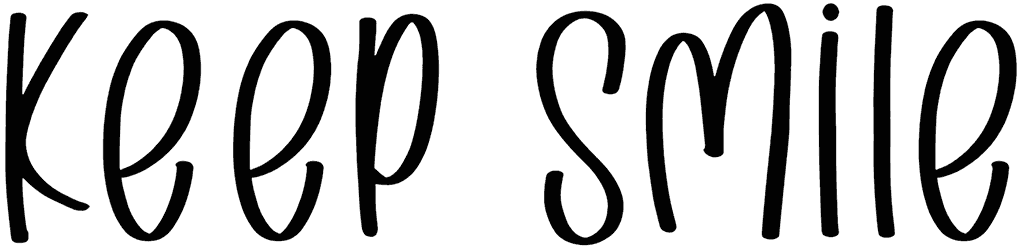
Keep Smile Font
Keep your texts in the spotlight with a specific and lovely design, such as Keep Smile. This doodle font has a cute hand-drawn face and a cheerful mood. As a handwritten font, Keep Smile can be used for a lot of projects, for instance posters, kids’ designs, illustrations, or many others the same, and make them funnier.